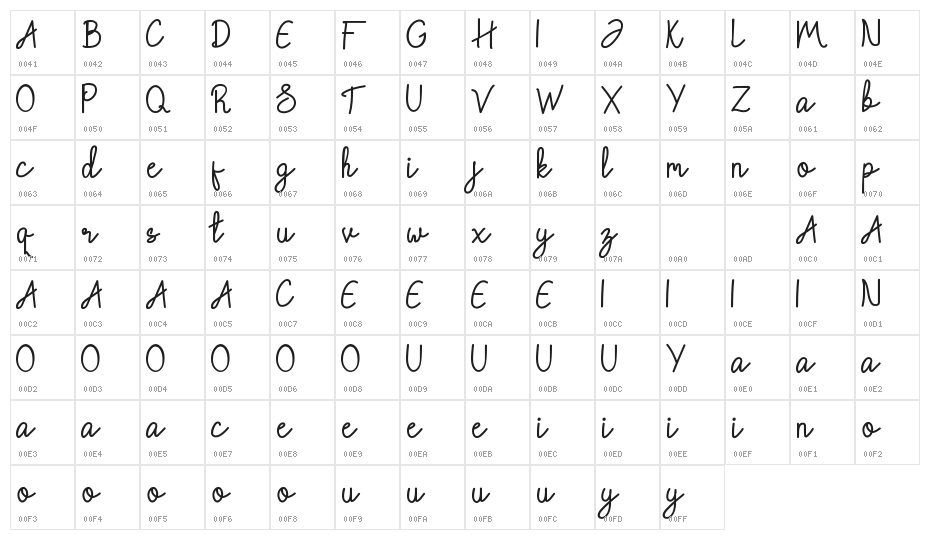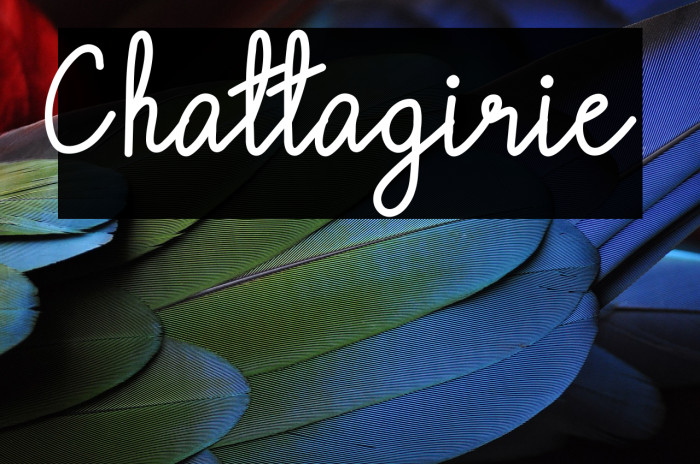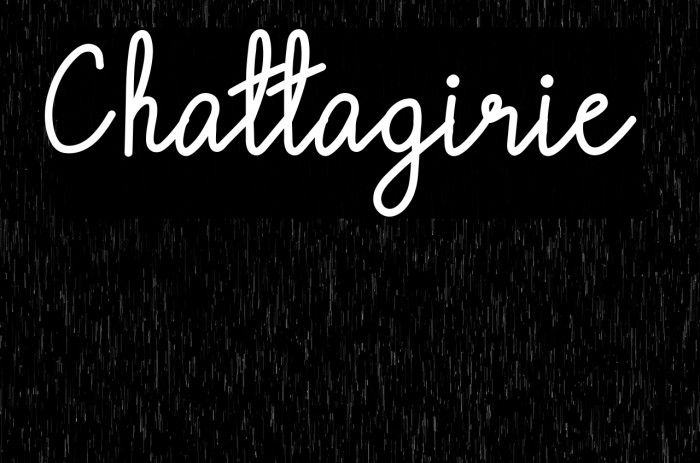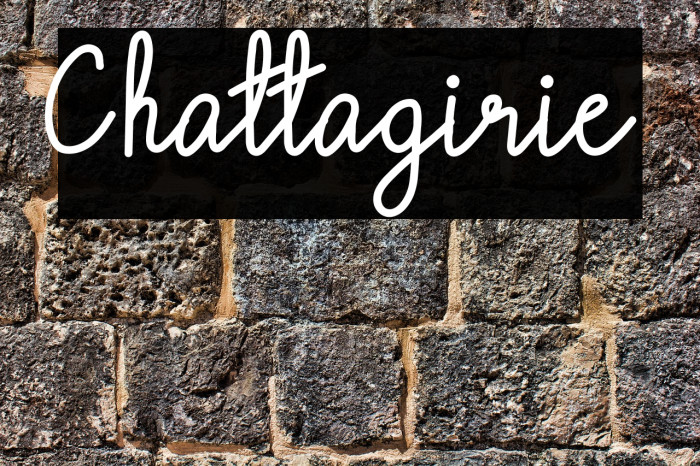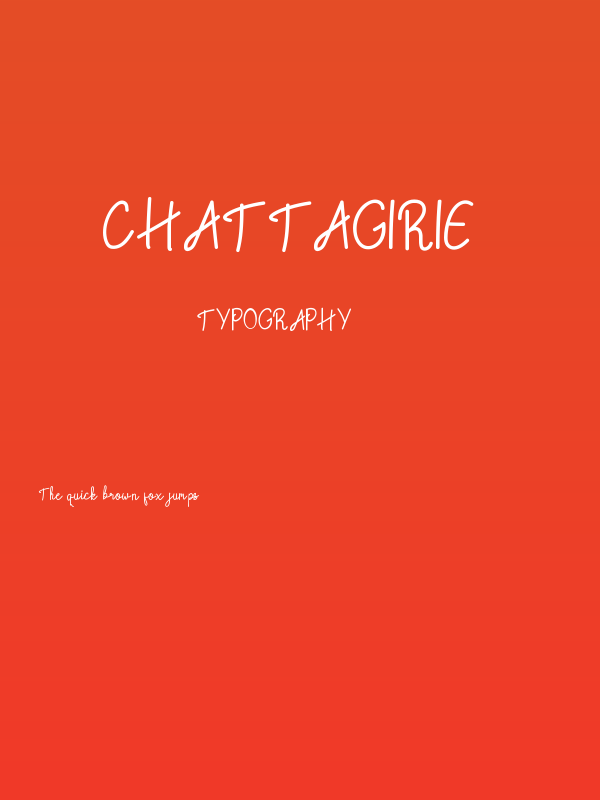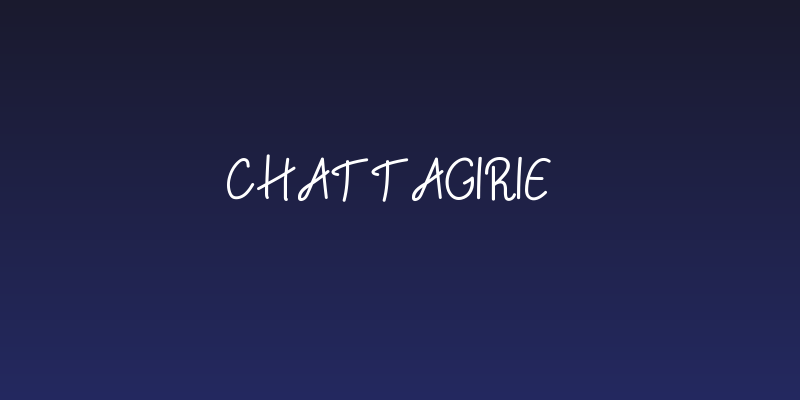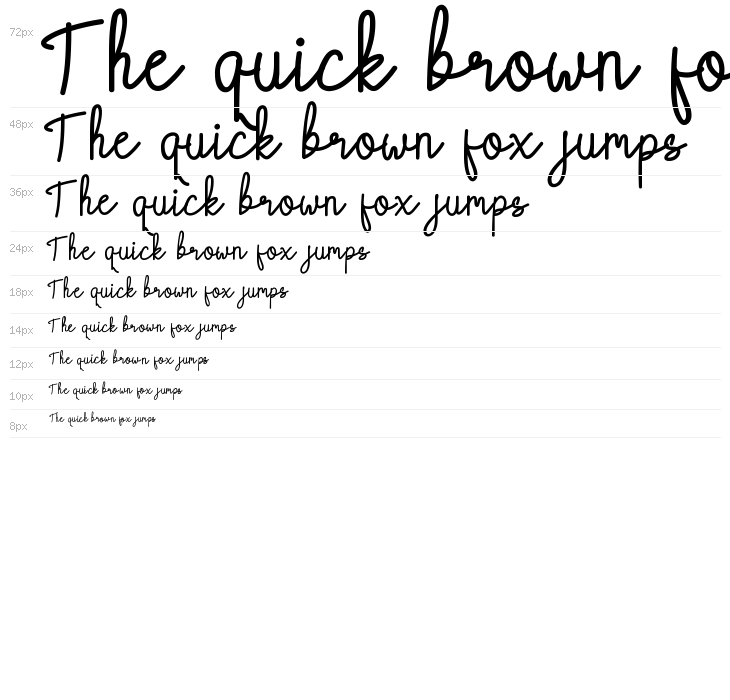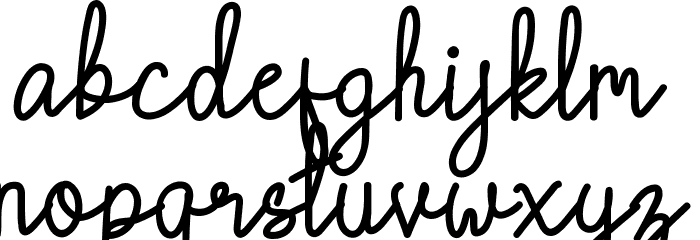
Chattagirie Font
Chattagirie Description
This font features a playful and casual handwritten style, characterized by its fluid and connected strokes. The uppercase letters are bold and slightly slanted, giving a dynamic and lively appearance. The lowercase letters maintain a consistent flow, with some letters extending below the baseline, adding to its informal charm. The numerals are clear and legible, matching the overall style of the alphabet. Special characters are creatively integrated, maintaining the whimsical and approachable feel of the font. This typeface is perfect for projects that require a personal touch, such as invitations, greeting cards, or creative branding.
| Proposed Projects | Ideal for invitations, greeting cards, creative branding, and personal projects. |